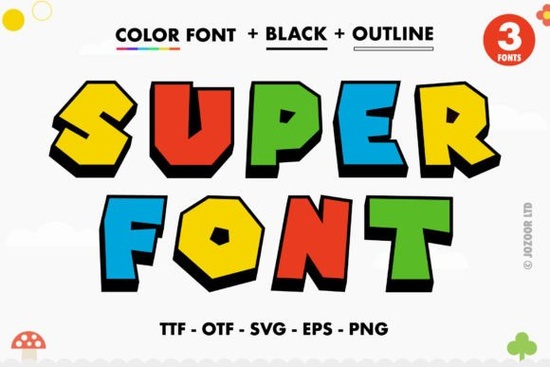
If you're looking for a playful, bold font that adds instant personality to your designs, Super Font might be exactly what you need. It’s a thick, colorful typeface with extra glyphs and swashes built right in thanks to PUA encoding, which makes those decorative elements easy to access without switching fonts or digging through symbol libraries. Whether you’re designing kids’ birthday invites, custom apparel, or social media graphics, Super brings energy and charm with minimal effort.
What really sets Super apart is that it’s a color font (OpenType-SVG), meaning each letter can include multiple colors and shading baked directly into the character. This isn’t just a regular outline font it’s designed to look finished and vibrant right out of the box. That said, it’s important to know where it works: Photoshop, Illustrator, Silhouette Studio, and Inkscape all support OpenType-SVG fonts. But if you use Cricut Design Space, keep in mind that the OTF or TTF versions won’t display the color features there. For full compatibility details, Creative Fabrica’s guide to using Super Font walks you through setup and troubleshooting.
Who is Super Font best for?
This font shines in projects that benefit from a cheerful, handcrafted vibe:
- Print-on-demand sellers creating mugs, t-shirts, or tote bags with upbeat slogans
- Small business owners designing eye-catching signage or packaging for kid-friendly products
- Crafters making party decorations, scrapbook titles, or personalized gifts
- Digital designers building social posts, YouTube thumbnails, or app icons that need bold, readable text with flair
Because of its weight and built-in color, Super works best as a headline or accent font not for body text. Pair it with a clean sans-serif for balance, or let it stand alone when you want maximum impact.
How does it compare to other playful color fonts?
Super Font stands out because of its boldness and modern thickness. While some colorful fonts lean cutesy or script-like, Super keeps things graphic and punchy more comic book than calligraphy. That makes it versatile across age groups and product types, from teen merch to boutique branding.
What should you know before downloading?
Practical tips for using Super Font effectively
Because it’s so visually rich, less is often more:
- Avoid long paragraphs. Use Super for names, short phrases, or logos only.
- Check contrast. The built-in colors may not pop on busy backgrounds preview your design in context.
- Don’t stretch or distort. Its thick strokes can become muddy if scaled unevenly.
- Combine thoughtfully. Pair with neutral fonts like Montserrat or Lato to keep the focus on Super’s personality.
And remember: while the font includes swashes and alternates via PUA encoding, you’ll need a glyph panel (like in Illustrator or Font Book) to access them not all apps show these extras automatically.